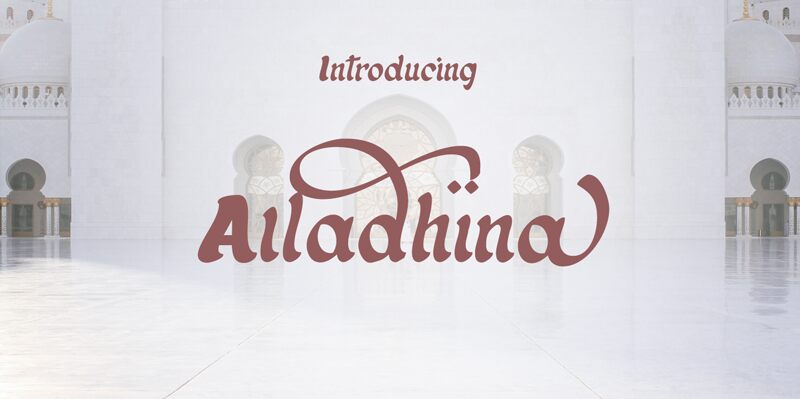
Alladhina, a creation by Fontada, embodies the spontaneity and flair of hand-painted signage with its brush style strokes. This font's bold character exudes confidence and presence, making it a standout choice for impactful messaging. Its artistic strokes convey a sense of individuality and raw energy that can infuse any design with personality.
Ideal for projects that require an organic touch, Alladhina is well-suited for branding, advertising campaigns, and creative editorial work where a strong visual statement is key. Its robust form can hold its own in large headers yet carries enough detail to enrich smaller text with texture and vibrancy.